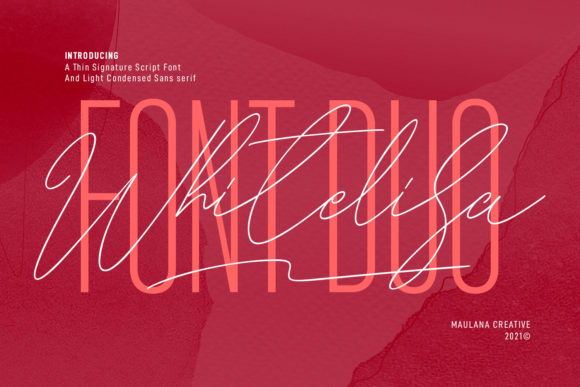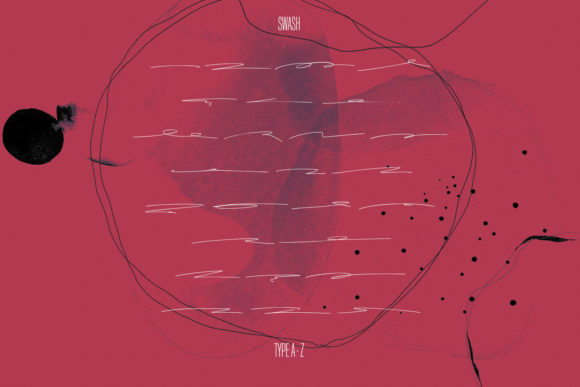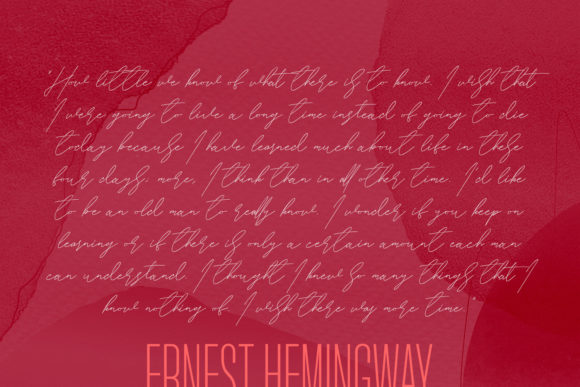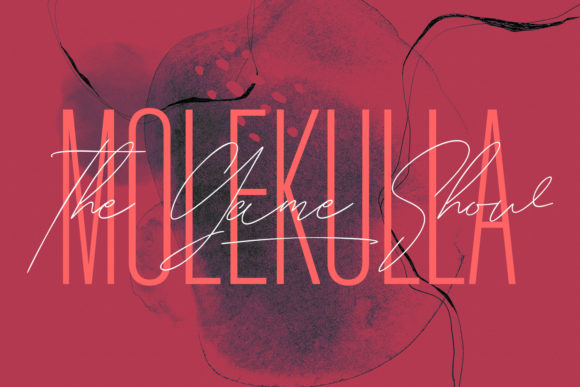
Whitelisa Font
About Whitelisa Font
Whitelisa is a stunning and thin lettered duo font (script and sans serif), ideal for giving your projects a branded but friendly feel. The two included styles can be combined together perfectly but are also beautiful on their own.